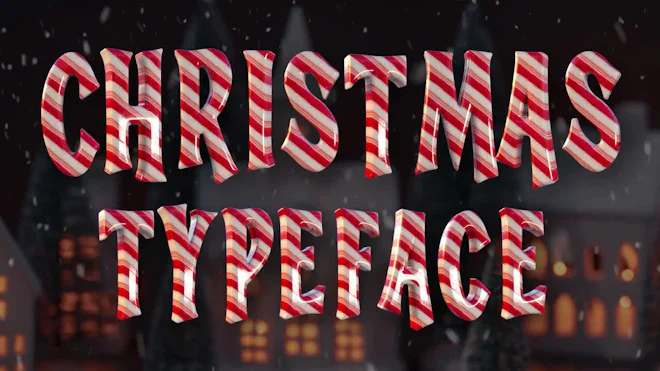
This stock motion graphics video pack includes 36 different clips of Christmas candy cane letters and numbers on a transparent alpha channel in a seamless loop.